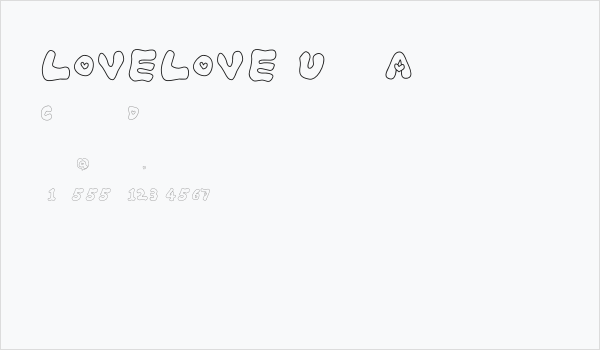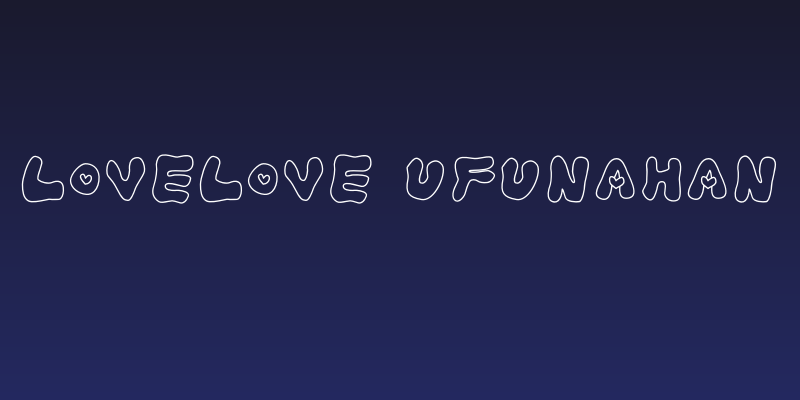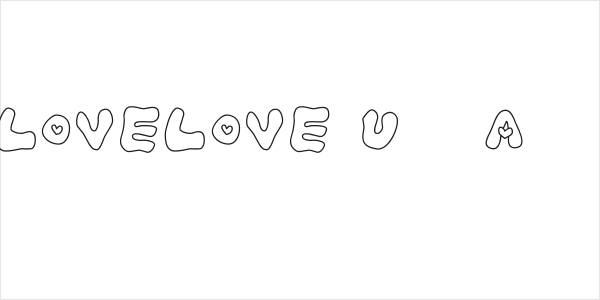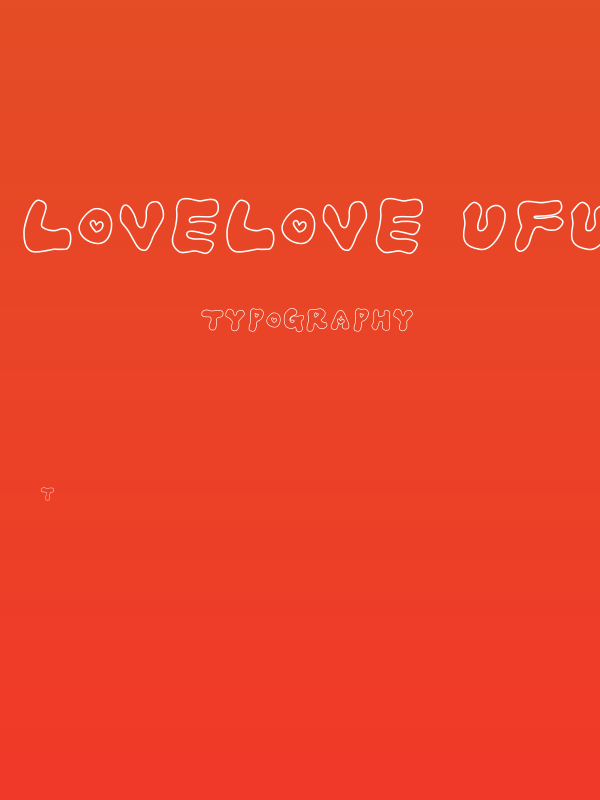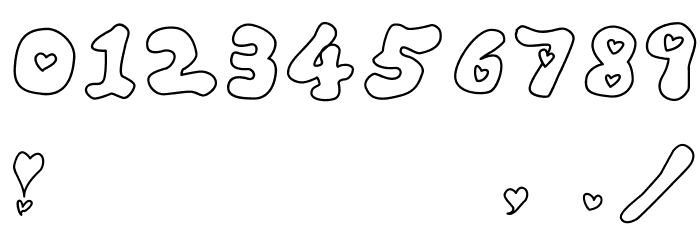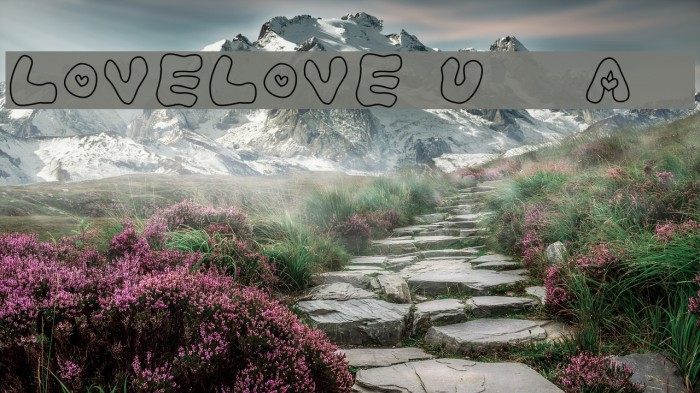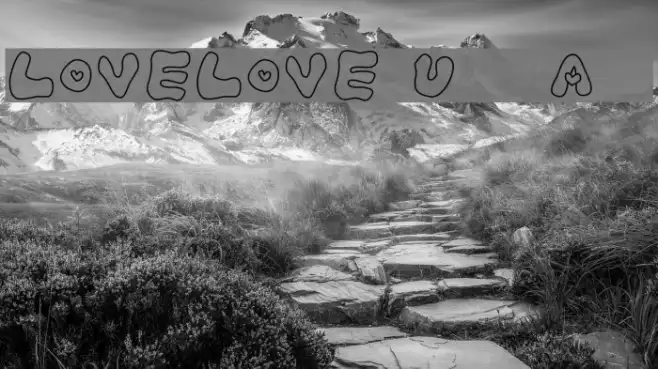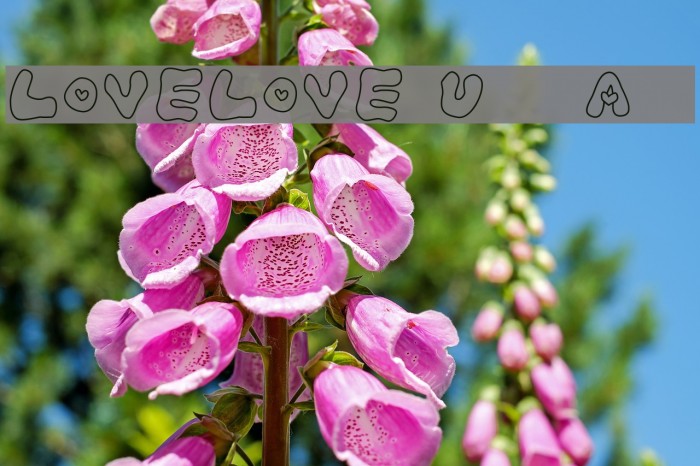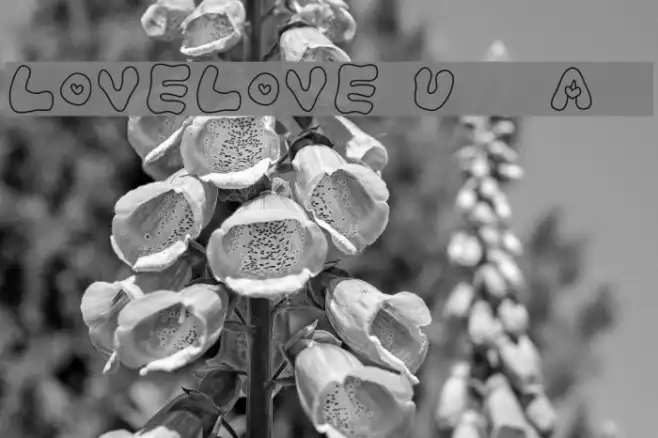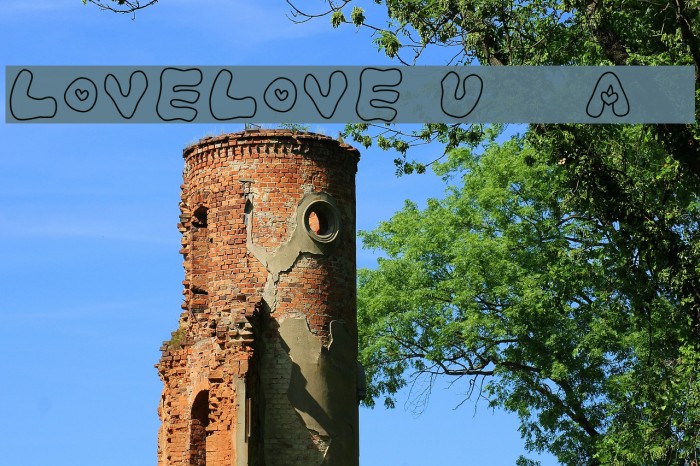
LOVELOVE_UfunAhan Font
This playful and whimsical font features a bubbly, hand-drawn style with a unique heart motif incorporated into several characters. The letters are rounded with a slightly irregular outline, giving them a casual and friendly appearance. The numbers and special characters follow the same playful theme, with hearts adding a touch of charm. This font is perfect for projects that aim to convey warmth, fun, and creativity. Its distinctive style makes it ideal for children's books, greeting cards, and playful branding.
| Overall Style | Playful, Whimsical |
| Use Case | Headlines, Logos, Creative projects |
| Proposed Projects | Ideal for children's books, greeting cards, playful branding, and creative projects. |